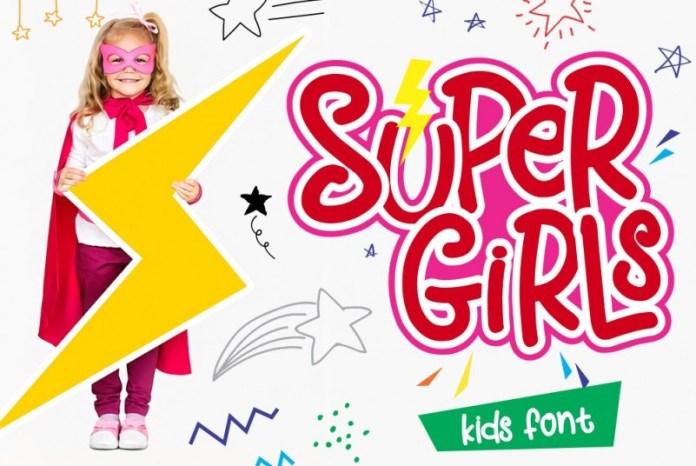
Super Girls Font – a super fun and playful hand-lettered bold typeface. Use for logos, quotes, invitations, blog posts, business cards, presentations and more!
This font is all caps and includes numbers and punctuation.